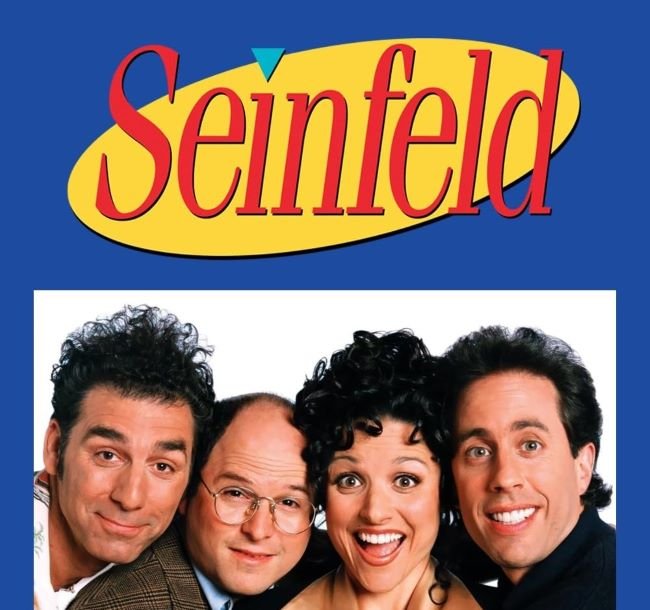
Seinfeld font uses a customised version of ITC Fenice Std Oblique — an elegant, slightly theatrical italic serif font — and pairs it with a bright yellow background and that iconic red oval swoosh to create one of the most recognisable title treatments in American sitcom history. The font choice is a small act of typographic wit. The freely available Seinfeld Font brings this quirky, elegant serif energy to creative projects.